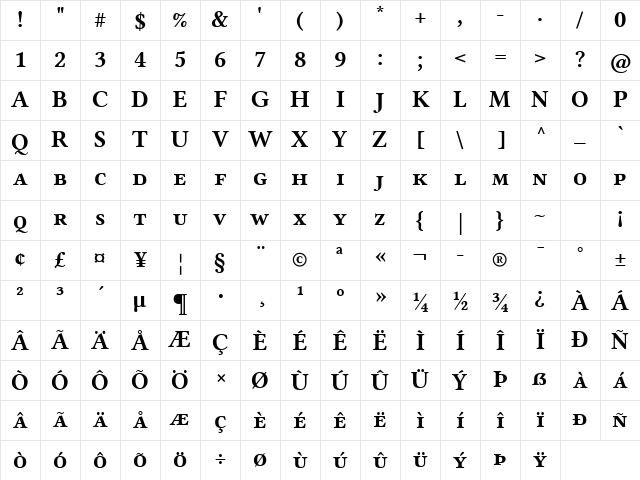
Complete Linux Libertine Capitals Bold Small Caps glyph index. Displaying only characters natively supported by Linux Libertine Capitals Bold Small Caps font.
Linux Libertine Capitals is a composed and adaptable typeface that performs quietly and consistently across a wide range of design contexts. Its bold stroke weight gives it real presence on the page.
Who designed the Linux Libertine Capitals Bold Small Caps font?
This font was published by Philipp H. Poll. Check the technical specs section for copyright and designer details.